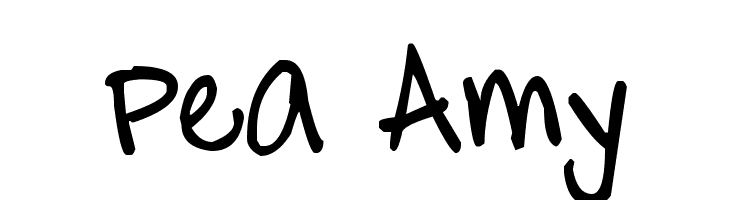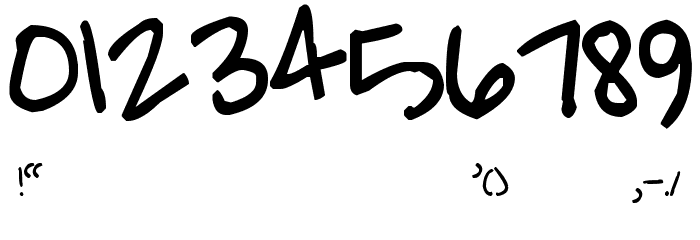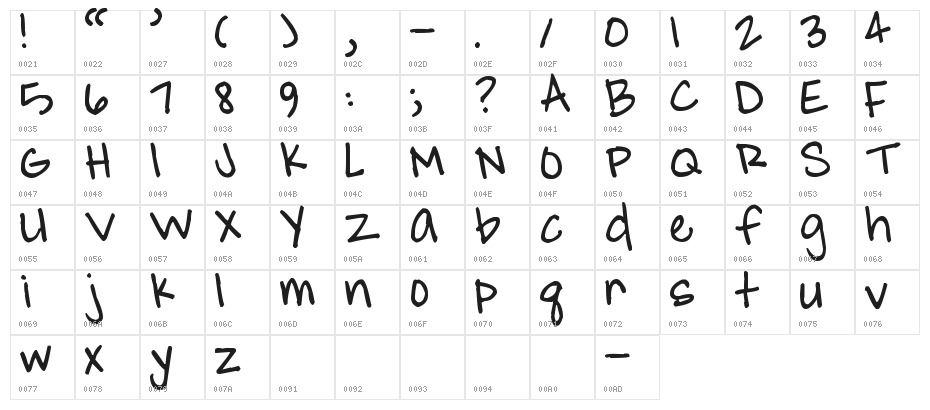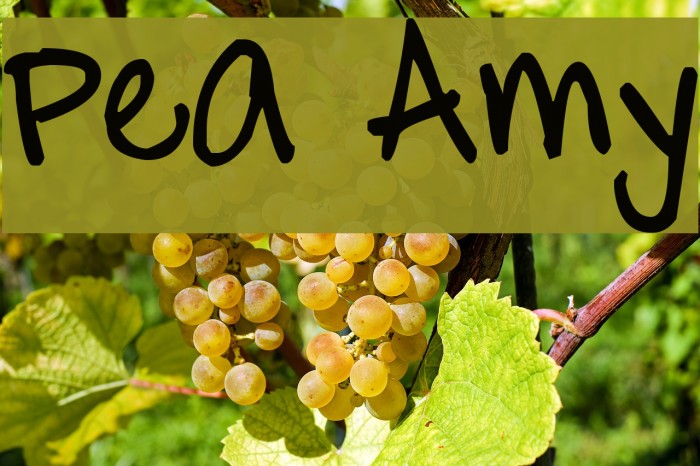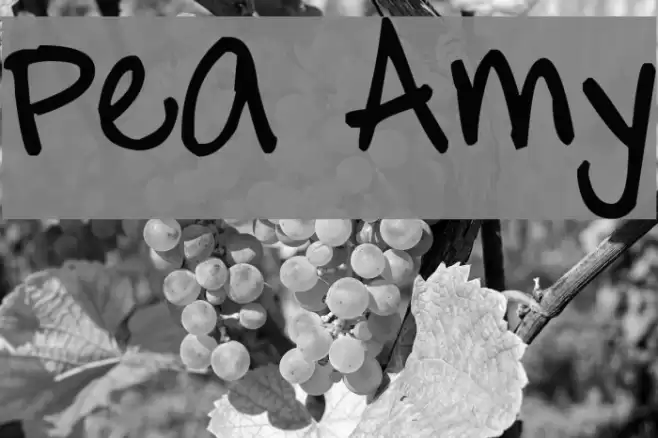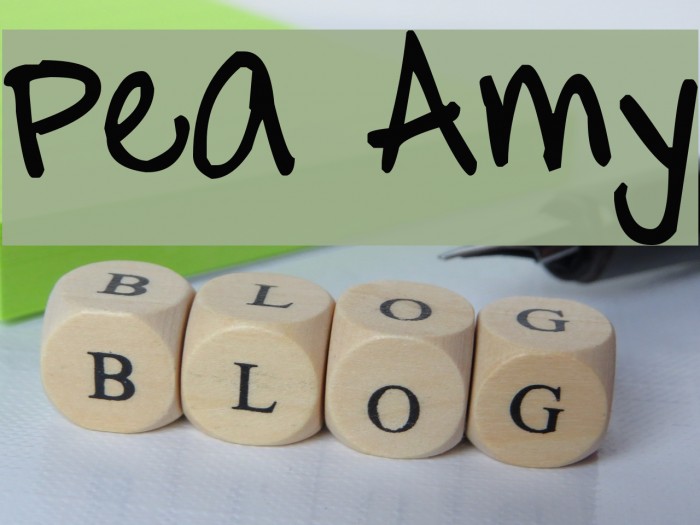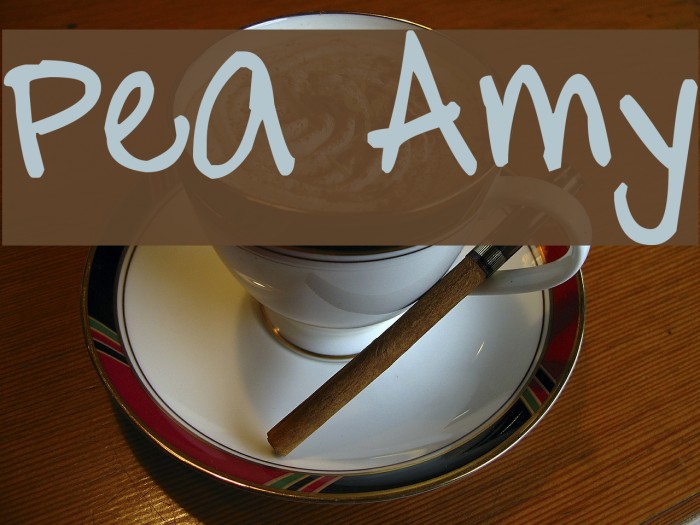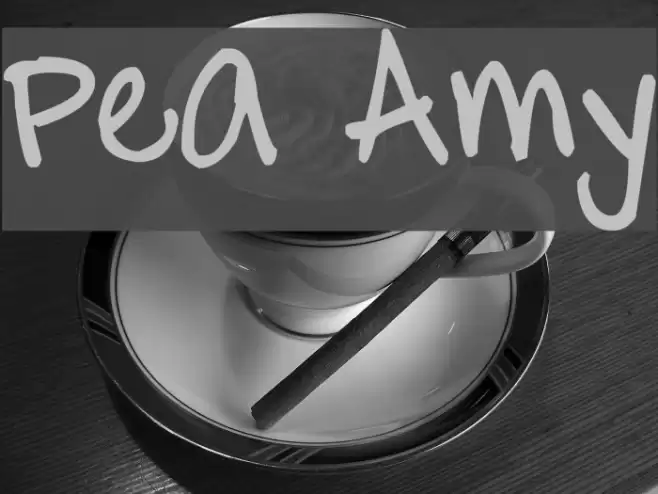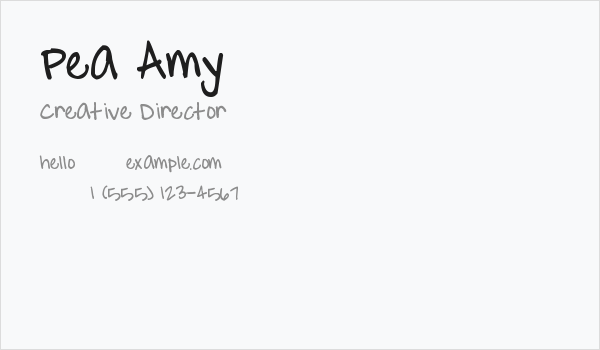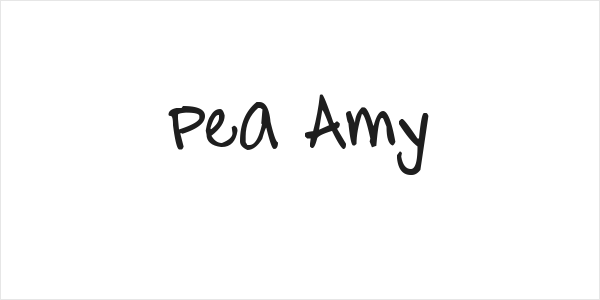
Pea Amy Font
Pea Amy Description
This font exudes a playful and casual handwritten style, characterized by its uneven strokes and slightly irregular letterforms. The uppercase and lowercase letters maintain a consistent flow, giving a personal touch reminiscent of a friendly note or informal communication. The numbers and special characters follow the same whimsical style, ensuring uniformity across all glyphs. Its organic appearance makes it approachable and relatable, perfect for projects that require a human touch.
| Use Case | Headlines, Informal text, Personal projects |
| Proposed Projects | Ideal for personal notes, greeting cards, children's books, and informal branding. |